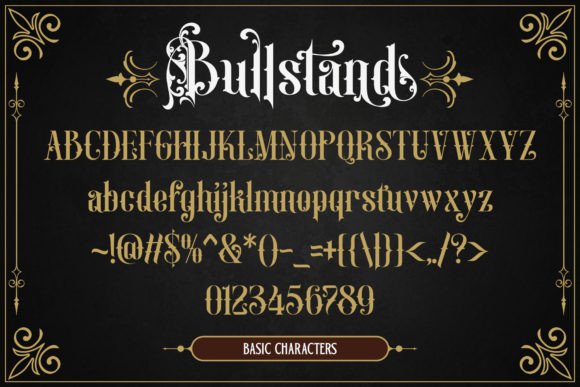
Bull Stand Font: A Timeless Victorian Elegance
The “Bull Stand Font” and “The ‘Bull Stand Victorian’ typeface” are terms that might evoke curiosity among typography enthusiasts and design aficionados. While the specific term “Bull Stand Font” may not directly reference a widely recognized typeface, the description of “The ‘Bull Stand Victorian’ typeface” as a distinctive and ornate font that exudes the elegance and intricacy of the Victorian era, invites a deeper exploration into the world of typography, particularly focusing on the Victorian era’s influence on typeface design.
The Essence of Victorian Era Typography
The Victorian era, spanning from the late 1830s to the early 1900s, was a period marked by significant cultural, technological, and artistic advancements. In design and typography, this era was characterized by an affinity for intricacy, elegance, and ornamentation. The “Bull Stand Victorian” typeface, with its distinctive and ornate features, embodies these Victorian design principles.
Characteristics of Victorian Typography
Victorian typography is known for its elaborate and decorative style. Fonts from this era often feature:
- Intricate Serifs: Many Victorian fonts have detailed serifs that add to their ornate appearance.
- Flourishes: Decorative strokes and flourishes are common, adding elegance and complexity to the letters.
- Varied Line Weights: The contrast between thick and thin lines in Victorian fonts contributes to their dramatic and expressive quality.
The “Bull Stand Victorian” typeface likely encapsulates these characteristics, making it a quintessential example of Victorian typography.
The Significance of Ornate Fonts in Modern Design
Despite the rise of minimalism and simplicity in contemporary design, ornate fonts like the “Bull Stand Victorian” continue to hold significant appeal. These typefaces are often used in:
- Wedding Invitations: The elegance and sophistication of Victorian fonts make them a popular choice for wedding and event invitations.
- Logos and Branding: Companies seeking to evoke a sense of tradition, luxury, and craftsmanship may opt for ornate typefaces.
- Artistic Projects: Designers and artists may choose Victorian fonts for their projects to add a touch of historical and aesthetic depth.
The enduring popularity of such fonts underscores the importance of typography in conveying mood, style, and values in design.
Exploring the “Bull Stand Victorian” Typeface
While specific details about the “Bull Stand Victorian” typeface might be scarce, its description as a distinctive and ornate font aligns with the broader trends of Victorian typography. This typeface likely features:
- Elegant Letterforms: Each letter would be designed with careful attention to detail, possibly including unique flourishes.
- Historical Authenticity: The font may draw inspiration from original Victorian-era typefaces, ensuring its authenticity.
- Versatility: Despite its ornate nature, the “Bull Stand Victorian” could be versatile enough to be used in various design applications.
The hypothetical exploration of this typeface encourages a deeper appreciation for the artistry involved in typography and the historical context that shapes design aesthetics.
| Font Name | Bull Stand Font |
| Author | Alit Design |
The “Bull Stand Victorian” typeface, with its distinctive and ornate features, serves as a bridge to the rich history of Victorian typography. Fonts like this not only reflect the design sensibilities of their era but also continue to inspire and influence contemporary design. Whether through digital media, print, or art, the legacy of Victorian typography endures, offering a wealth of creative possibilities for designers and typography enthusiasts alike.
In celebrating the elegance and intricacy of the Victorian era, we acknowledge the role of typography in shaping our visual culture and the timeless appeal of well-crafted letterforms.